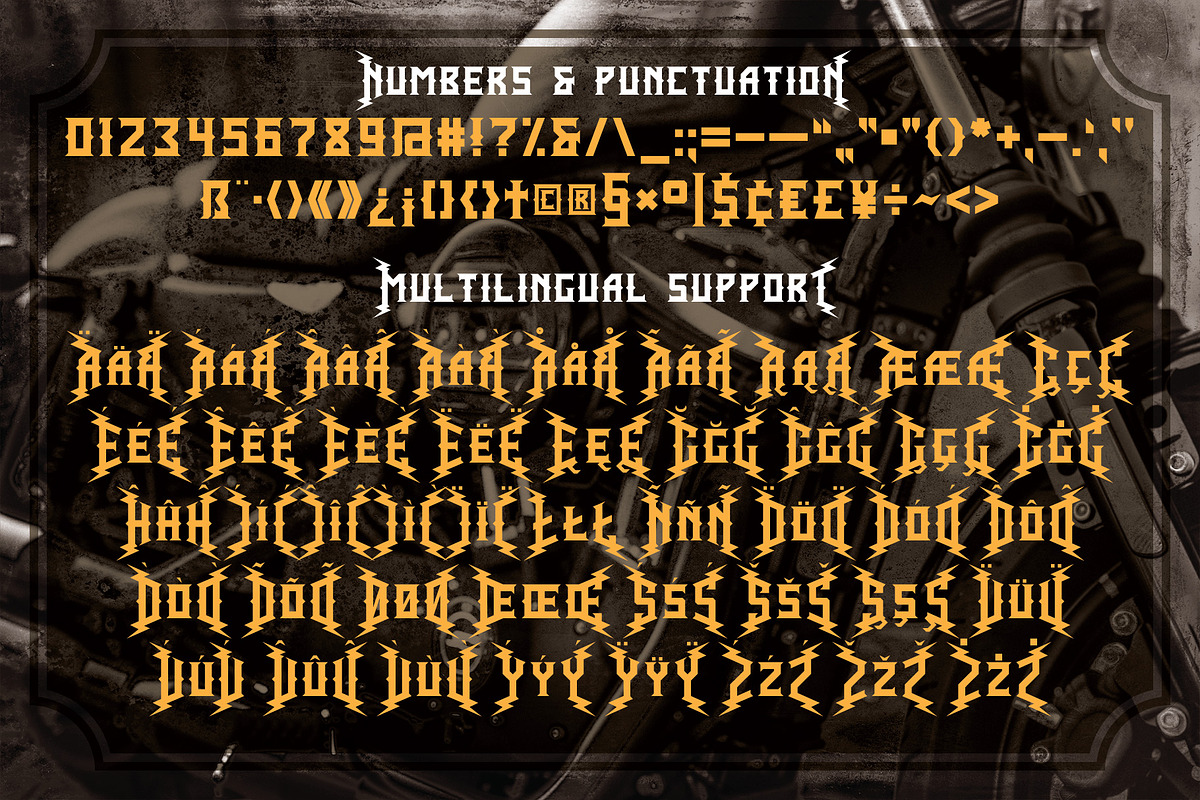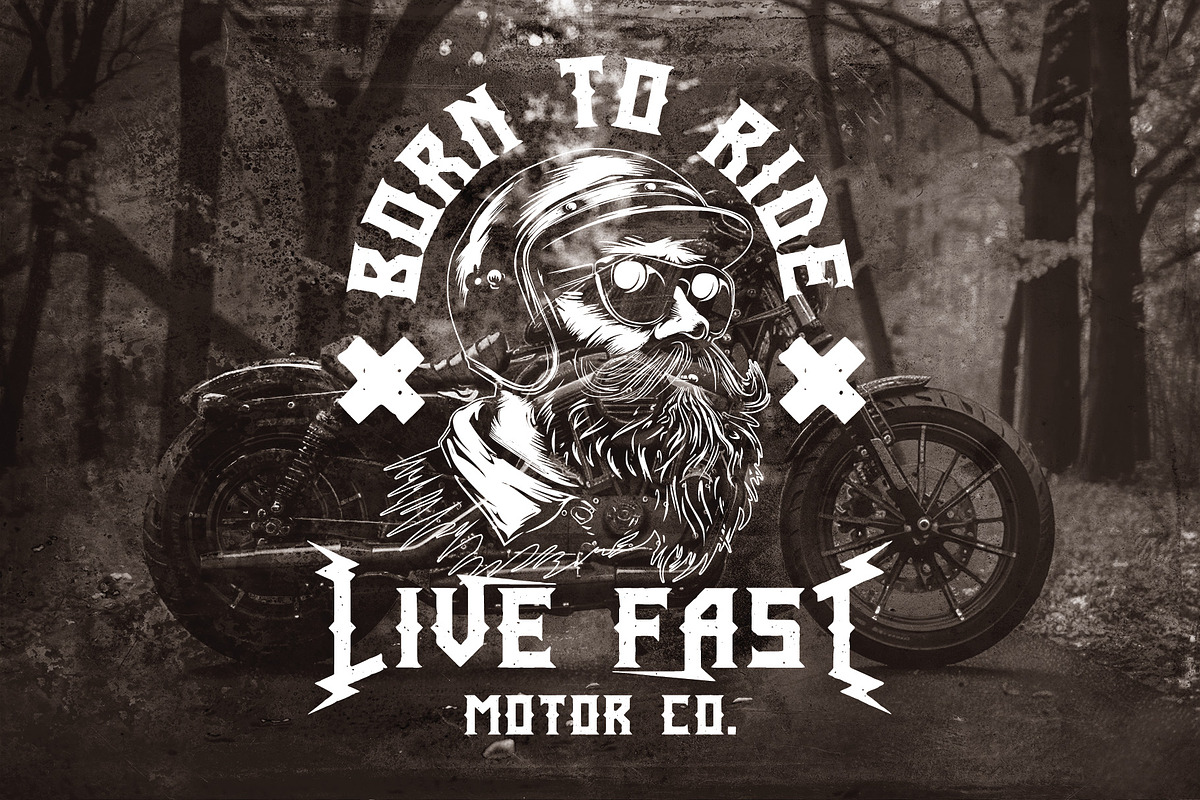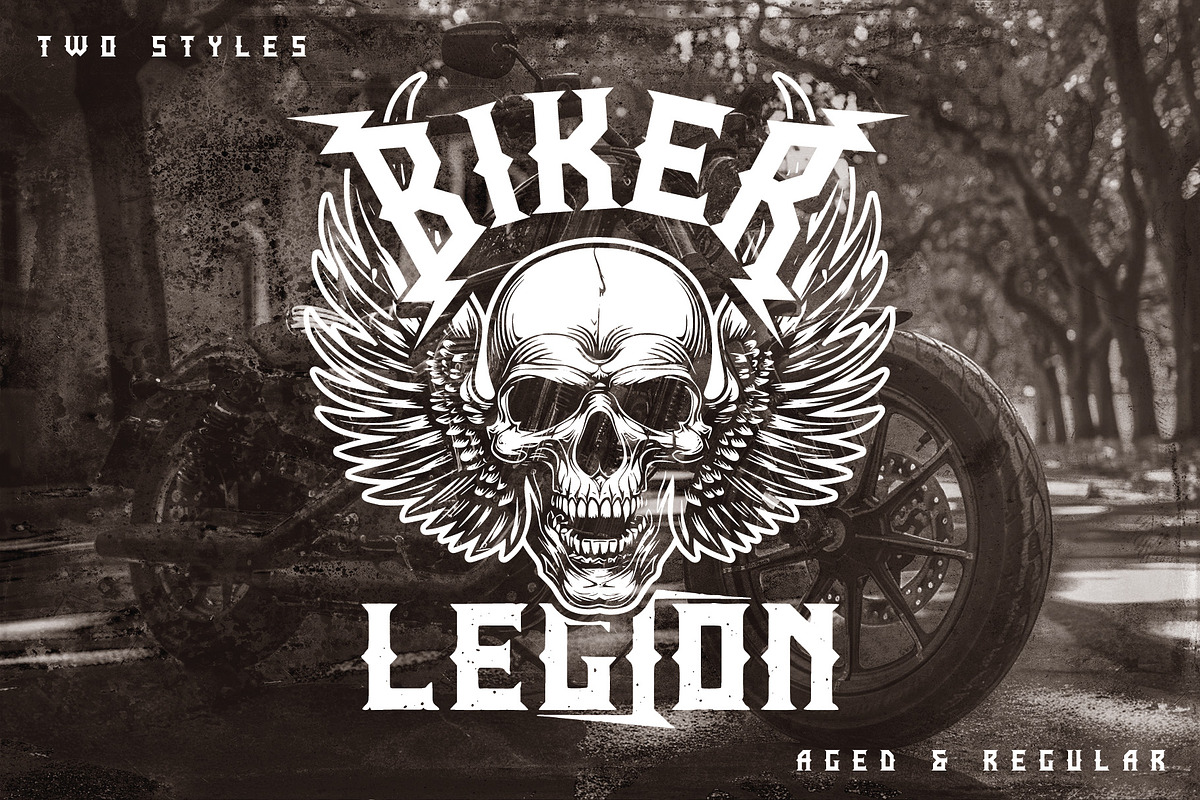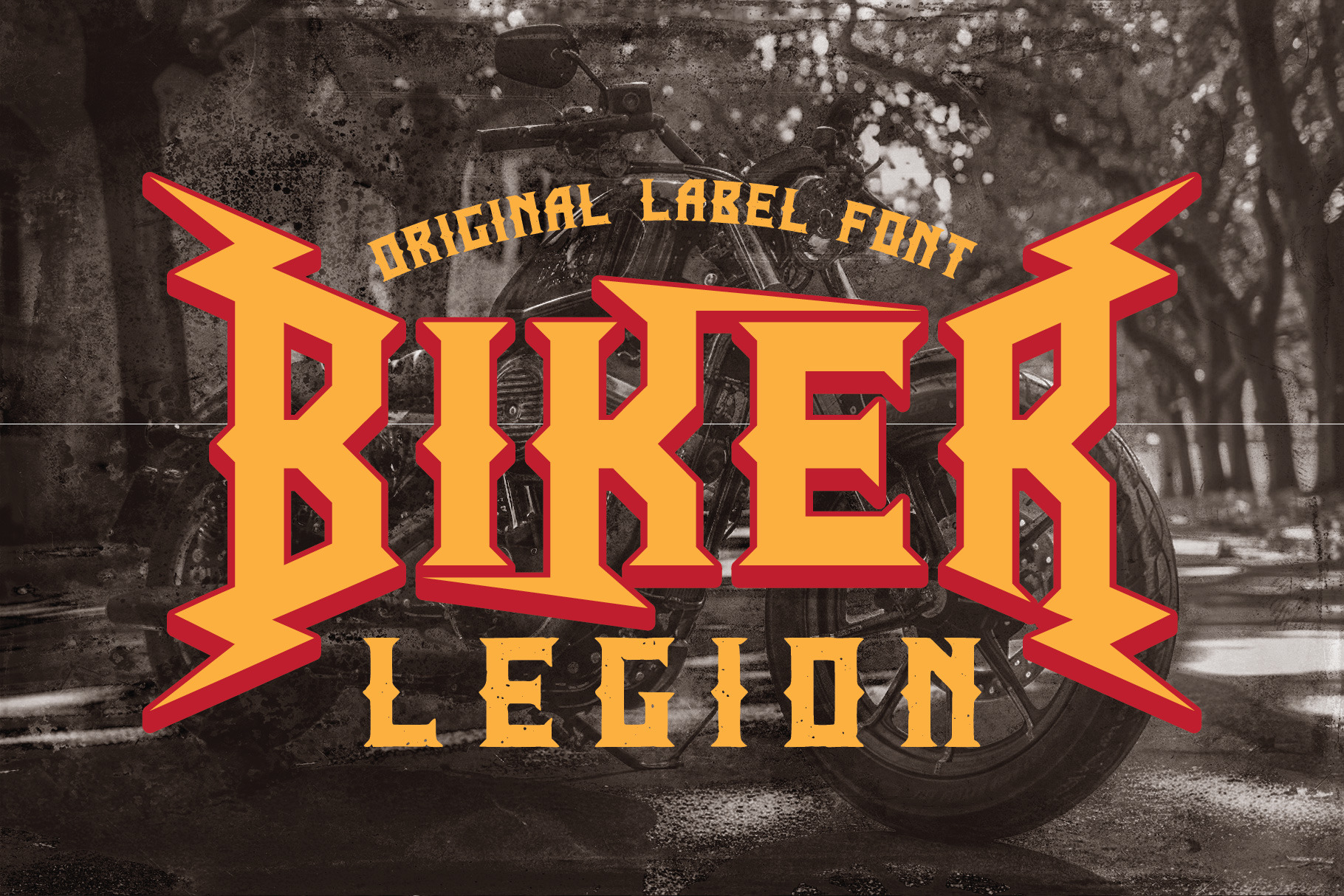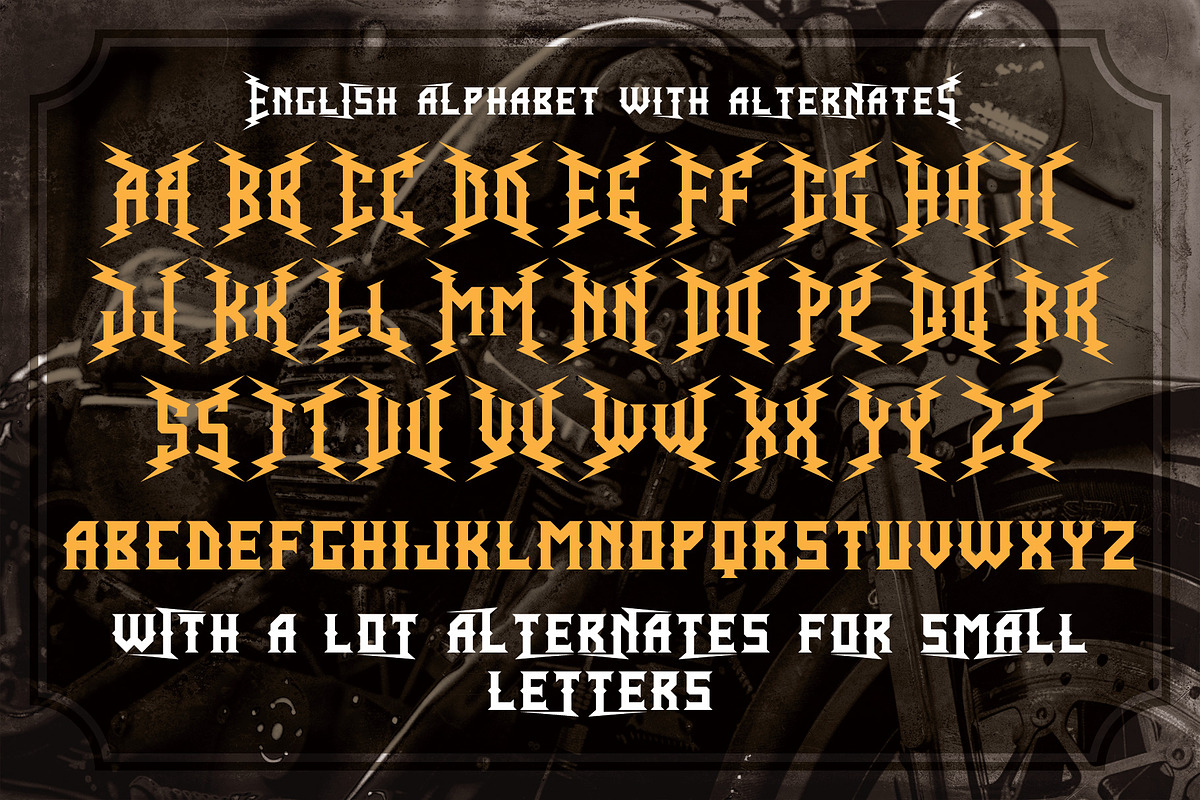
Biker Legion - Retro Label Font
Unique, blackletter, vintage, retro, sharp, monogram & label serif font. Comes with multilingual support & alternate characters - great for your new logo, monogram or branding project.
- 2 font styles
- Multilingual support & alternate characters
- Great for retro or vintage style branding projects